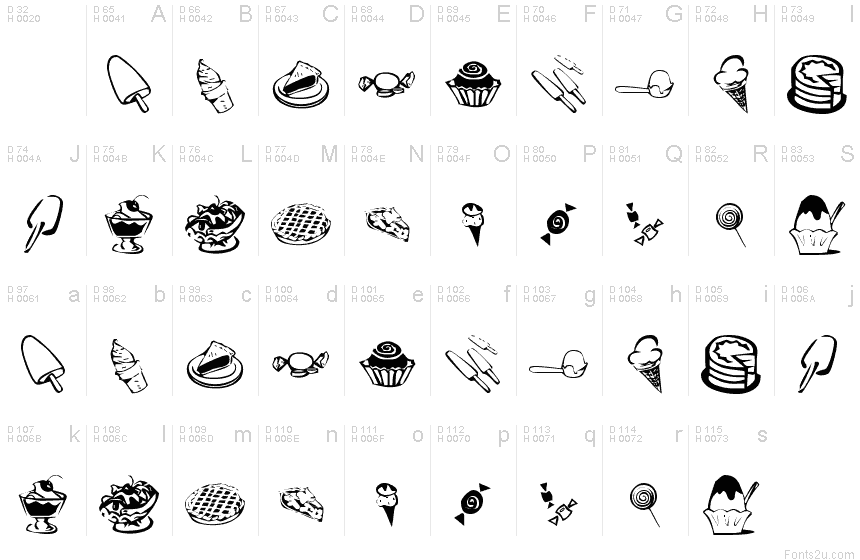
KR Sweet Tooth
KR Sweet Tooth by Katsfunfonts is a free dessert dingbat font centered on old-fashioned treats drawn in bold black-and-white silhouettes. The repeated mix of frosted cupcakes, a swirled lollipop, and an ice cream sundae gives the set a bakery-counter feel, with simple outlines and filled areas that read more like graphic emblems than neutral symbols.
For party invitations, bake sale flyers, candy shop tags, menu accents, or scrapbook labels, KR Sweet Tooth can frame a layout without needing much extra decoration. The icons have enough graphic mass for borders, stickers, and section markers, especially where that slightly vintage dessert-shop look helps tie the whole page together.